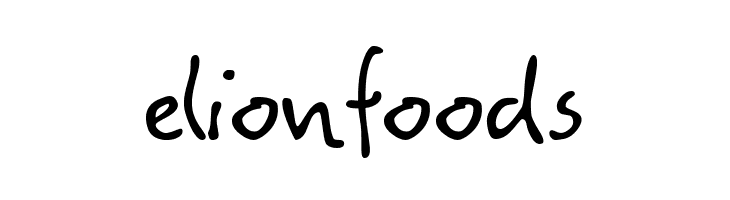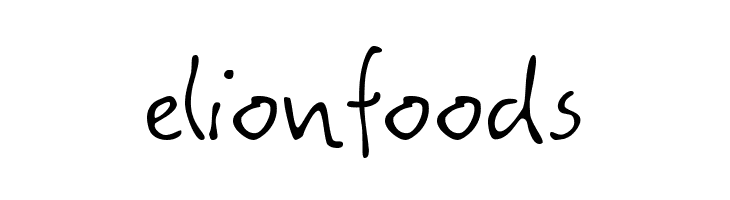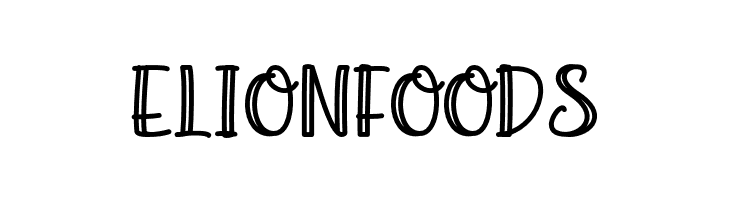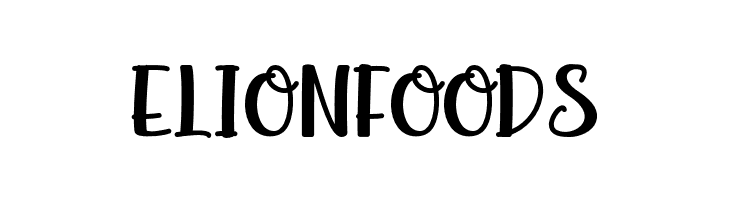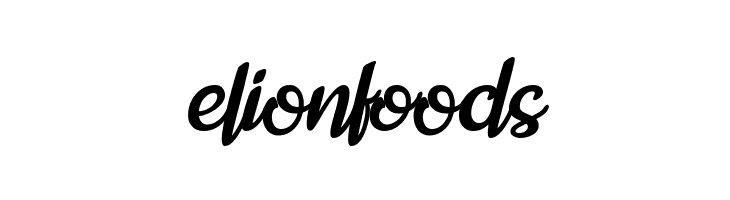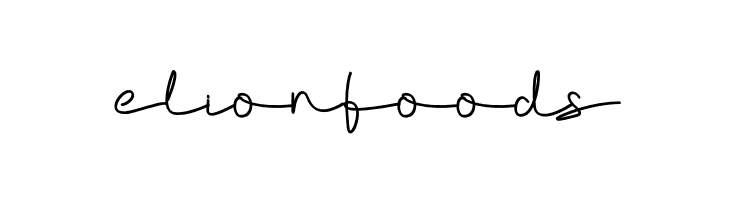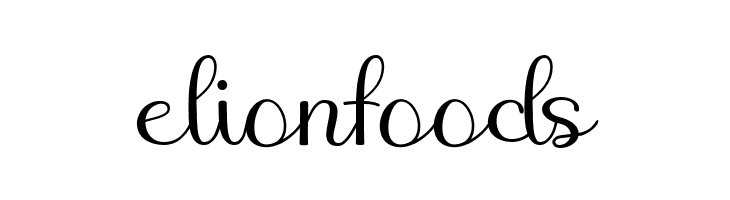
A graceful and sophisticated script font with flowing, interconnected letters.
A delicate, handwritten font with elegant, flowing lines and a whimsical touch.
A bold, elegant script font with flowing, interconnected letters.
A bold, italic script font with elegant, flowing cursive letters.
A sophisticated, flowing script font with an elegant italic style.
An elegant, flowing script font with a handwritten style.
A bold, brush-stroke font with a raw, artistic feel.
A bold, brush-style font with textured, dynamic strokes.
A bold and expressive script font with elegant, flowing cursive letterforms.
A lively and elegant script font with dynamic, flowing strokes.
A versatile font combining elegant script with bold serif styles.
An elegant script font with flowing, cursive strokes and decorative swashes.
A bold, elegant serif font with high contrast and sharp serifs.
A playful, handwritten font with a whimsical and modern style.
A playful, handwritten font with a whimsical and friendly style.
A bold serif font with high contrast and dramatic strokes, perfect for impactful headlines.
A bold, geometric font with a strong, uniform appearance.
A bold, geometric font with a neon-like double-line design.
A bold, dynamic script font with high contrast and decorative flourishes.
A bold, classic serif font with strong, authoritative characters.
A bold, rounded font with a strong and friendly appearance.
A modern, rounded font with geometric structure and balanced spacing.
A bold, rounded font with a three-dimensional outline for a playful, modern look.
A bold, rounded font with a playful and modern style.
A cursive, handwritten-style font with elegant, flowing strokes.
An ornate and decorative font with intricate swirls and flourishes.
A playful, bubble-like font with a hand-drawn, whimsical style.
A playful, handwritten font with bold, rounded strokes and a whimsical style.
A playful, casual handwritten font with smooth, flowing letterforms.
A playful, casual handwritten font with smooth, flowing lines.
A modern, elegant script font with flowing curves and a handwritten feel.
An elegant, flowing script font with smooth, connected strokes.
A playful, handwritten script font with lively curves and unique swashes.
A playful and whimsical script font with flowing, interconnected letters.
A bold, inline font with geometric and playful characteristics.